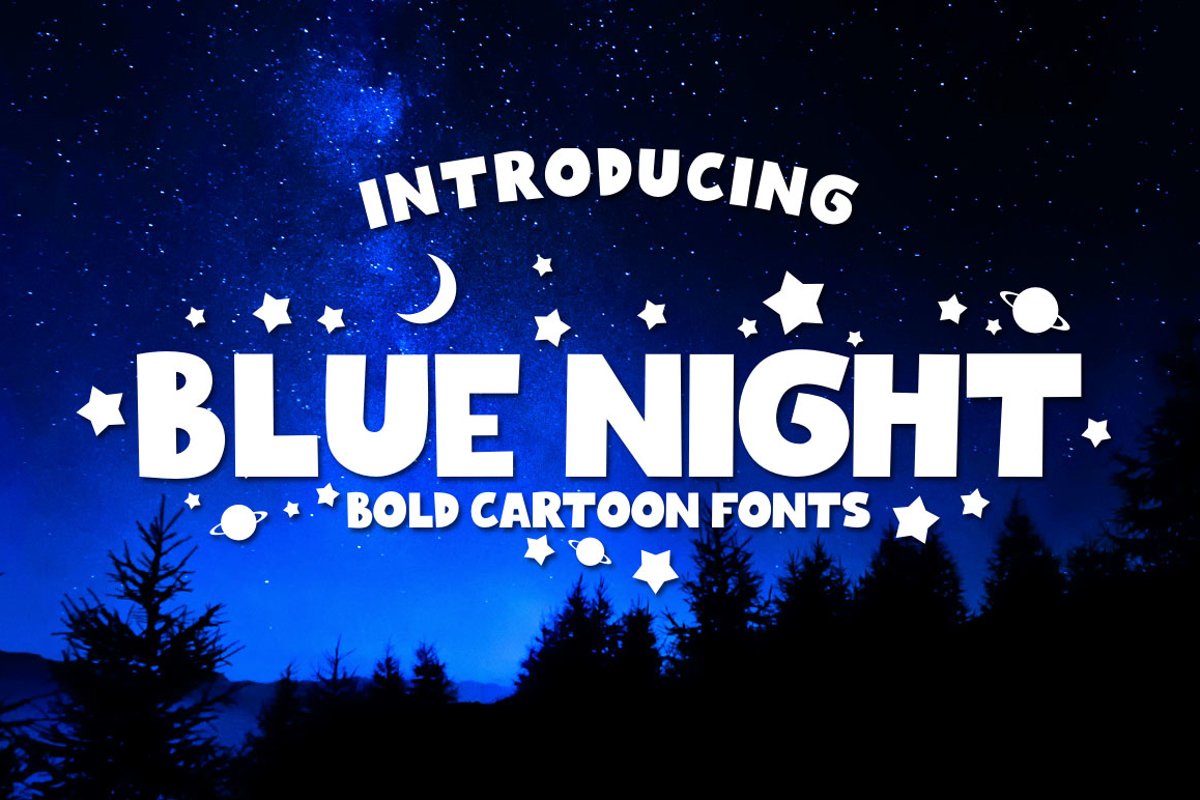
BLUE NIGHT - Bold Cartoon Fonts
Introduce the "Blue Night" font, a thick font with a thick cartoon feel, easy to read, fun, a font that you can easily play.
suitable for various media, posters, banners, brochures, and various merchandising such as t-shirts, totte bags, stickers and much more